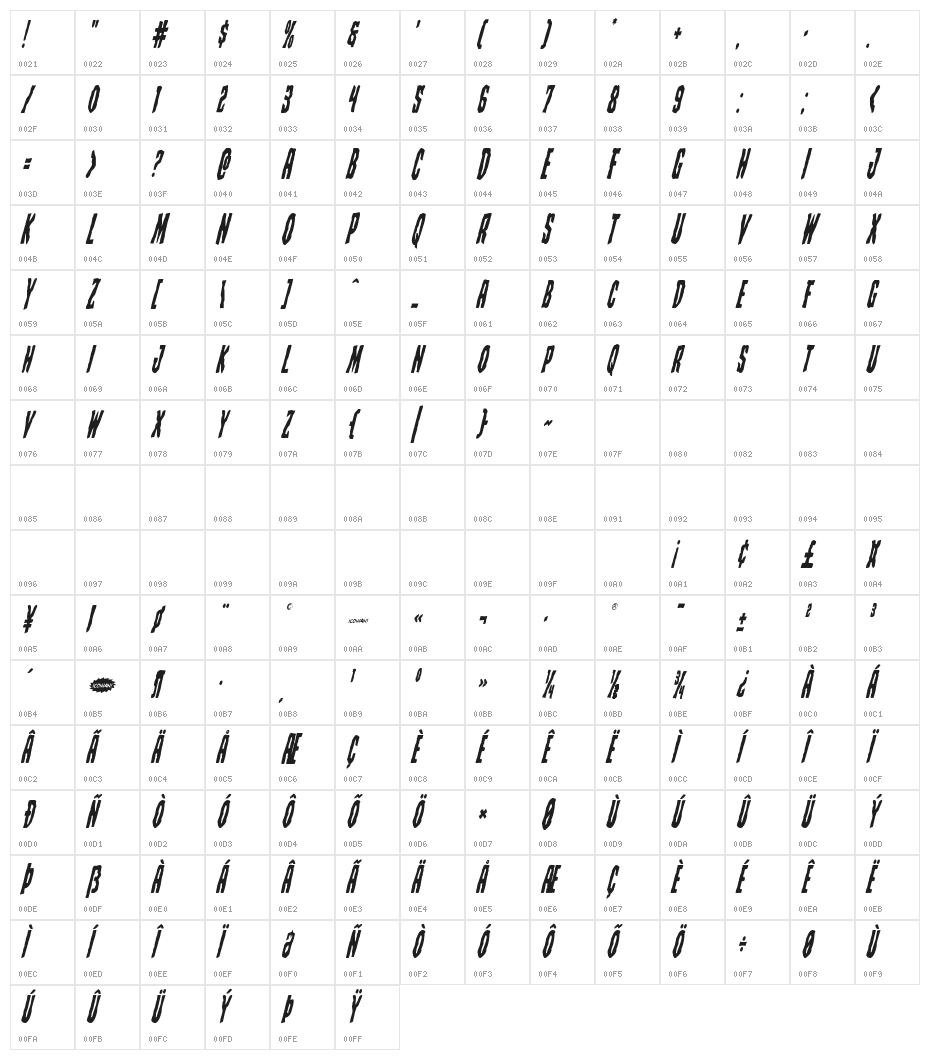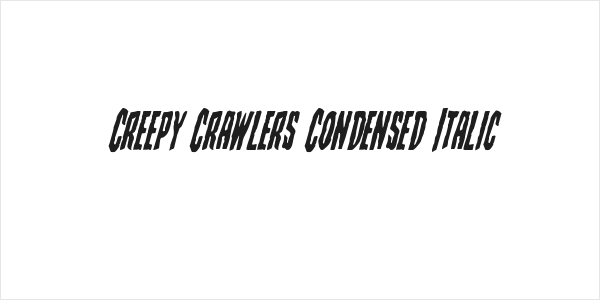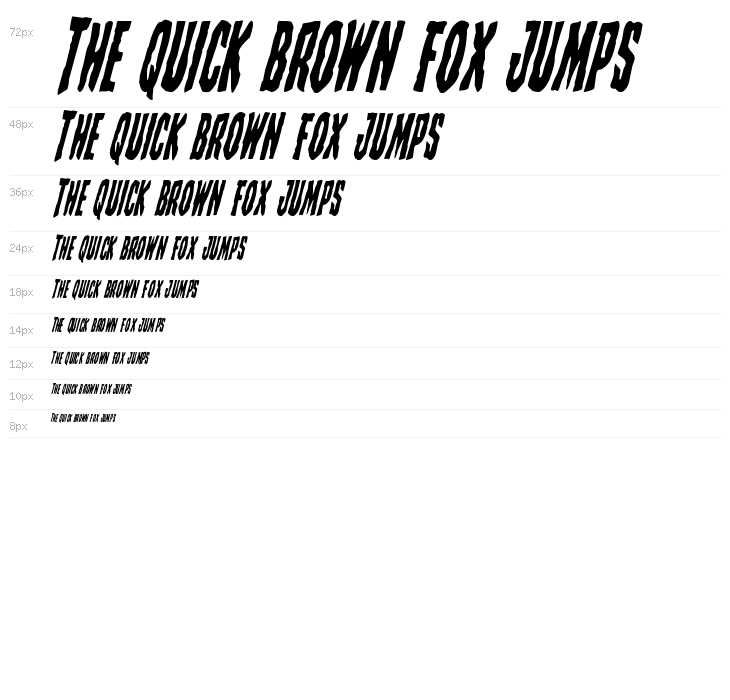
Creepy Crawlers Condensed Italic Font
Creepy Crawlers Condensed Italic Description
This font features a bold and condensed style with a distinct italic slant, creating a dynamic and energetic appearance. The characters are tightly spaced, enhancing the condensed look, and the strokes are thick, providing a strong visual impact. The design is reminiscent of horror or thriller themes, making it ideal for projects that require a dramatic and eye-catching typeface. The uppercase and lowercase letters maintain a consistent style, while the numbers and special characters complement the overall aesthetic. This font is perfect for creating a sense of urgency or excitement in design projects.
| Proposed Projects | Ideal for horror-themed posters, thriller book covers, Halloween event flyers, and any project needing a bold, dramatic typeface. |